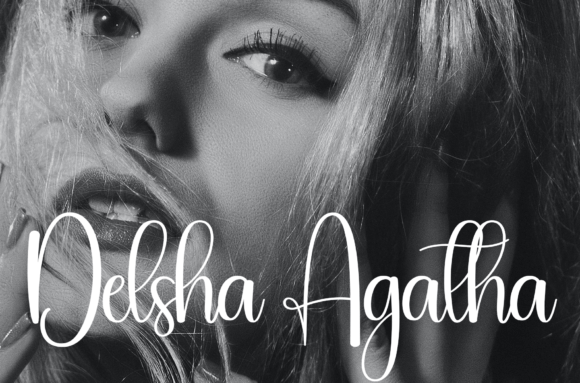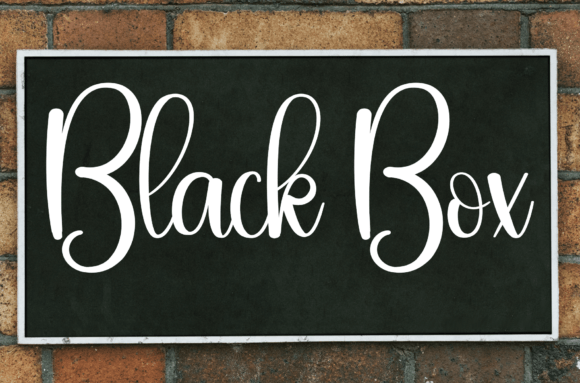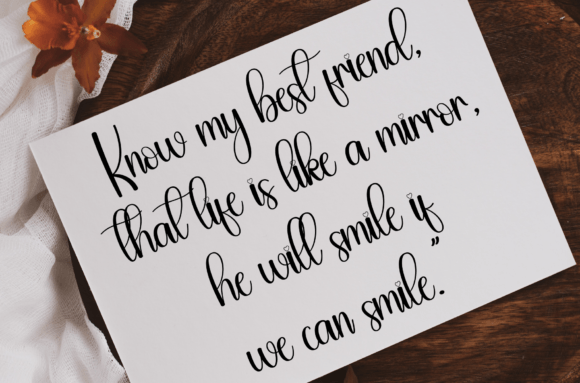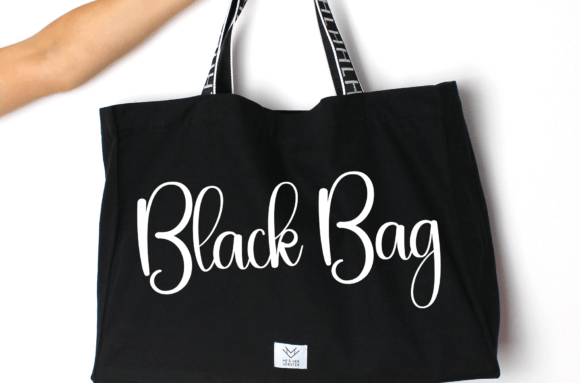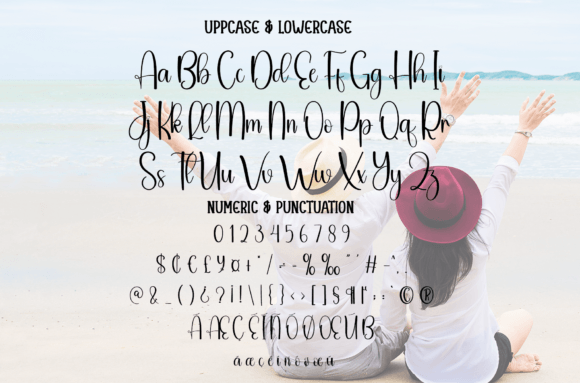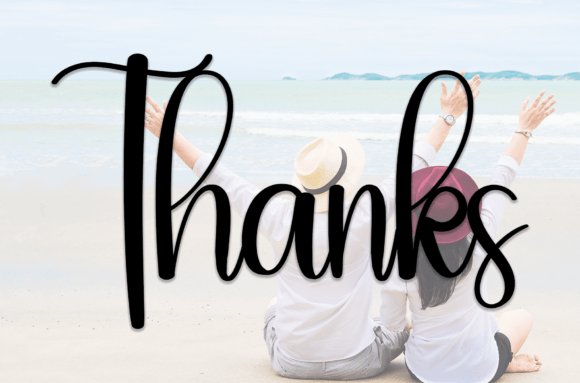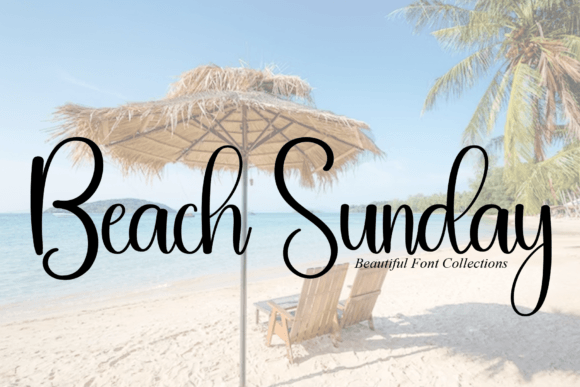
Introducing Beach Sunday Font: The Perfect Addition to Your Design Arsenal
Are you a designer or crafter looking for a font that can add a touch of whimsy and playfulness to your projects? Look no further than Beach Sunday Font! This sweet and friendly handwritten font is perfect for creating unique and eye-catching designs that are sure to stand out. In this article, we’ll take a closer look at Beach Sunday Font, its features, and how you can use it to elevate your designs.
What is Beach Sunday Font?
Beach Sunday Font is a beautiful handwritten font that exudes a sense of warmth and friendliness. Its sweet and playful curves make it perfect for designs that require a personal touch. Whether you’re creating wedding invitations, greeting cards, or social media graphics, Beach Sunday Font is sure to add a fun and creative twist to your projects.
Key Features of Beach Sunday Font
- Cute and Creative: Beach Sunday Font is designed to add a touch of playfulness to your designs. Its unique curves and lines make it perfect for creating eye-catching graphics that are sure to grab attention.
- Handwritten Style: The font features a beautiful handwritten style that gives it a personal and organic feel. This makes it perfect for designs that require a human touch.
- Versatile: Beach Sunday Font is a versatile font that can be used for a wide range of design projects, from wedding invitations to social media graphics.
- Easily Readable: The font is designed to be easily readable, making it perfect for designs that require a clear and concise message.
Use Cases for Beach Sunday Font
Beach Sunday Font is a versatile font that can be used for a wide range of design projects. Here are some use cases to get you started:
- Wedding Invitations: Beach Sunday Font is perfect for creating beautiful and unique wedding invitations that set the tone for the big day.
- Greeting Cards: The font is ideal for creating greeting cards for special occasions such as birthdays, anniversaries, and holidays.
- Social Media Graphics: Beach Sunday Font can be used to create eye-catching social media graphics that are sure to grab attention.
- Branding: The font can be used to create a unique brand identity that reflects a playful and creative personality.
Tips for Using Beach Sunday Font
Here are some tips for using Beach Sunday Font to get the most out of your designs:
- Pair it with Other Fonts: Beach Sunday Font can be paired with other fonts to create a unique and interesting contrast.
- Use it for Headings: The font is perfect for headings and titles, where its playful curves can add a touch of whimsy.
- Experiment with Colors: Beach Sunday Font looks great in a variety of colors, so don’t be afraid to experiment and find the perfect hue for your design.
Beach Sunday Font is a beautiful and versatile font that can add a touch of playfulness and creativity to your designs. Its sweet and friendly curves make it perfect for a wide range of design projects, from wedding invitations to social media graphics. With its easily readable style and cute and creative vibe, Beach Sunday Font is sure to become a staple in your design arsenal.